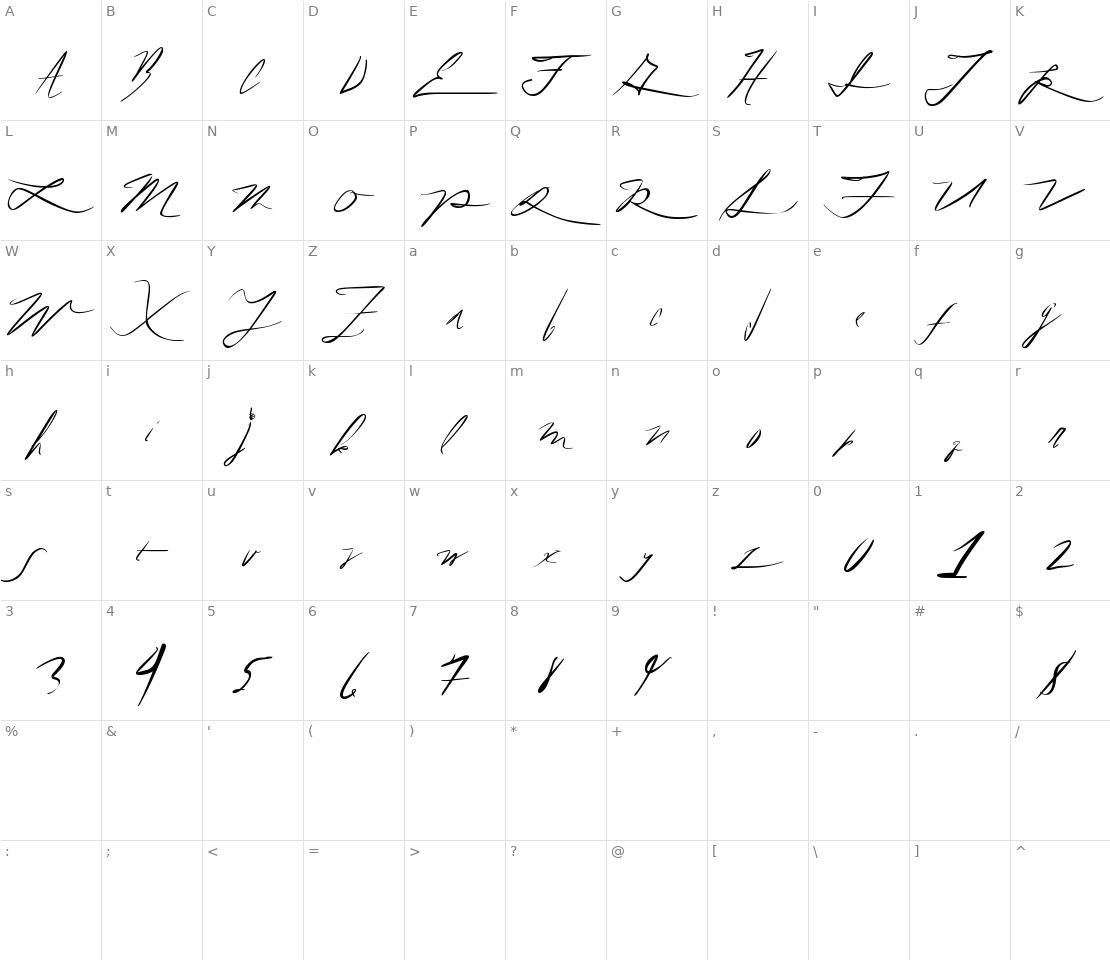
Fifty Hours
Fifty Hours is a thin, flowing cursive from Xerographer Fonts with the kind of graceful slant and delicate strokes you'd see in a carefully practiced signature. It feels personal and unhurried, with just enough stylishness to read as intentional rather than casual. A natural pick for branding, invitations, and anywhere elegant handwriting needs to carry the design.